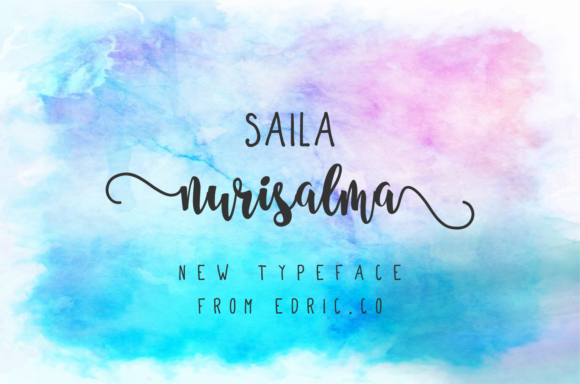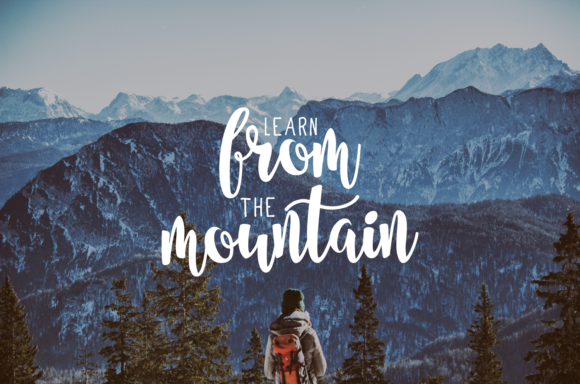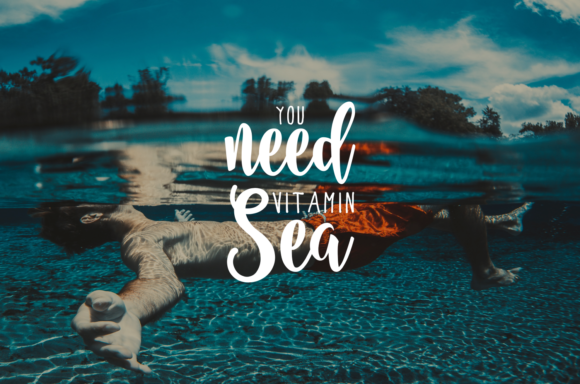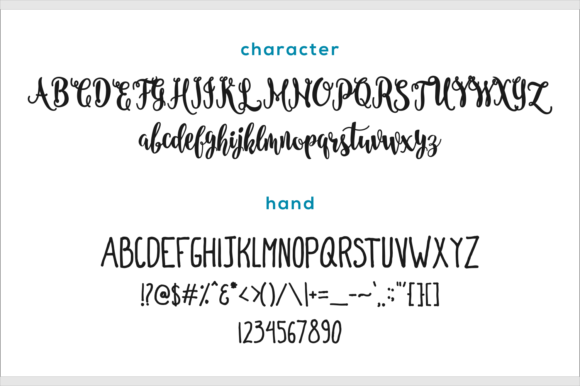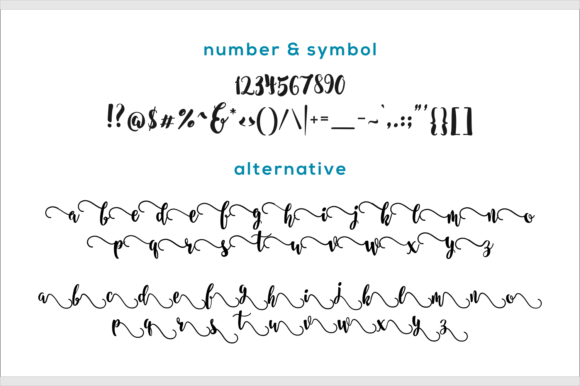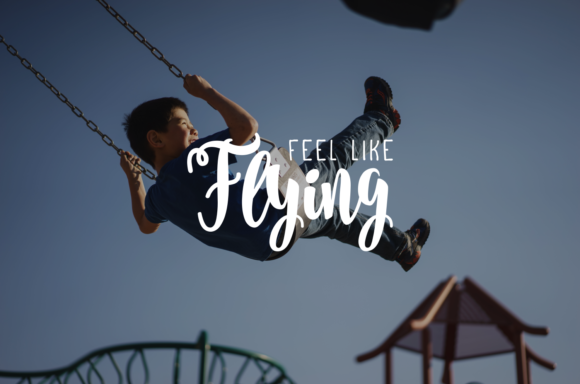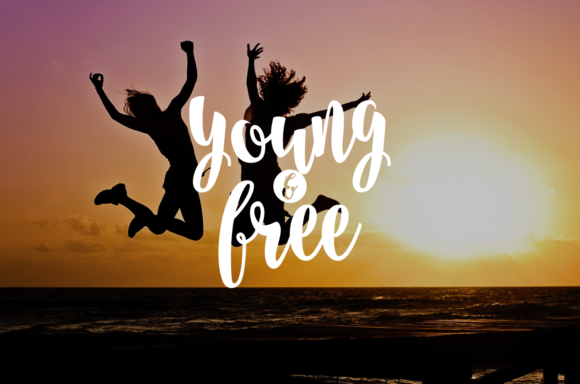
Saila Nurissalma Font
About Saila Nurissalma Font
The Saila Nurissalma is an unique font. It has an amazing handwritten touch which is perfect for adding a natural feel to your designs. It was inspired by a girl with two characters; emotional and cool, which also is the perfect way to describe this amazing typeface.